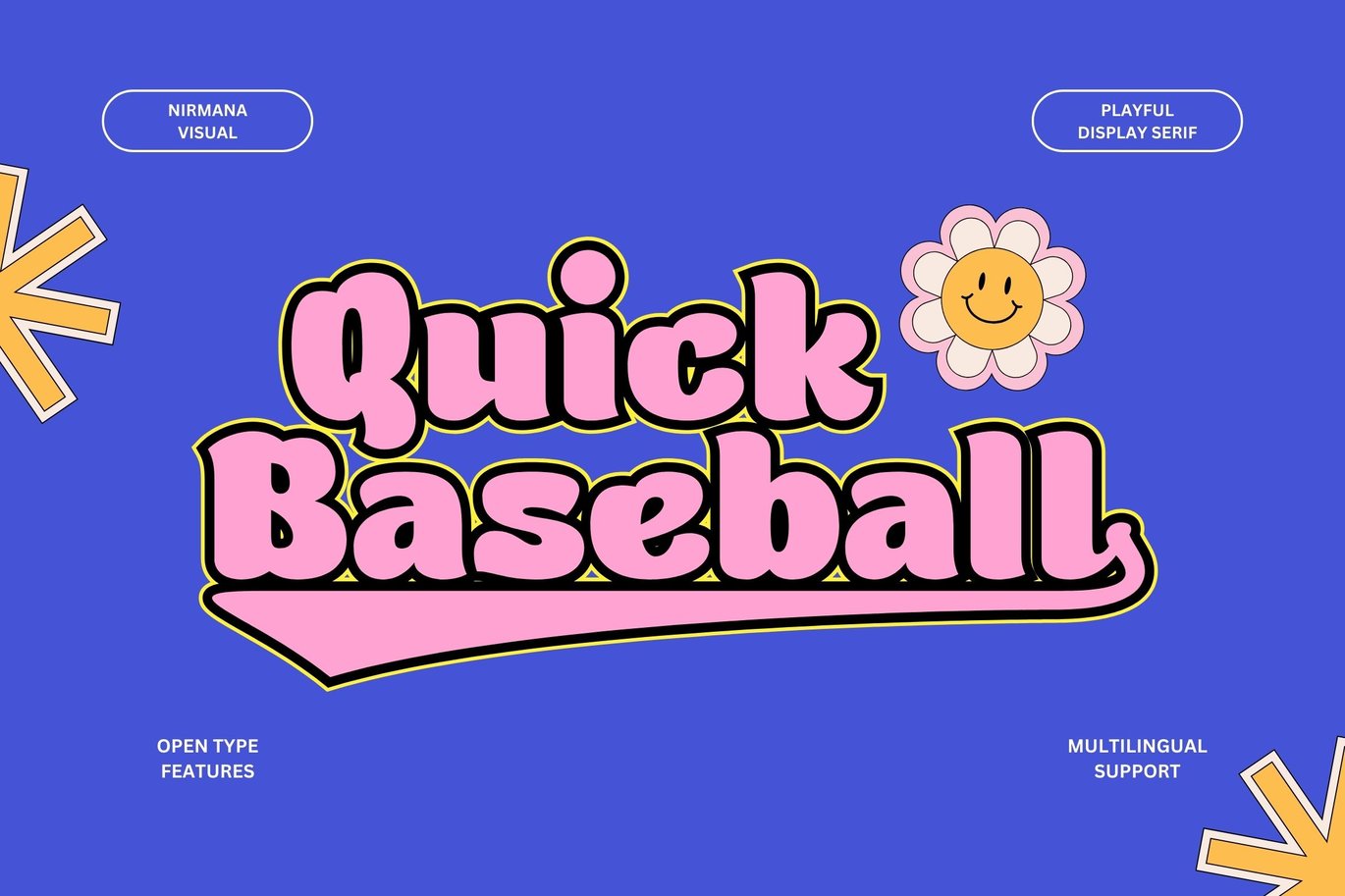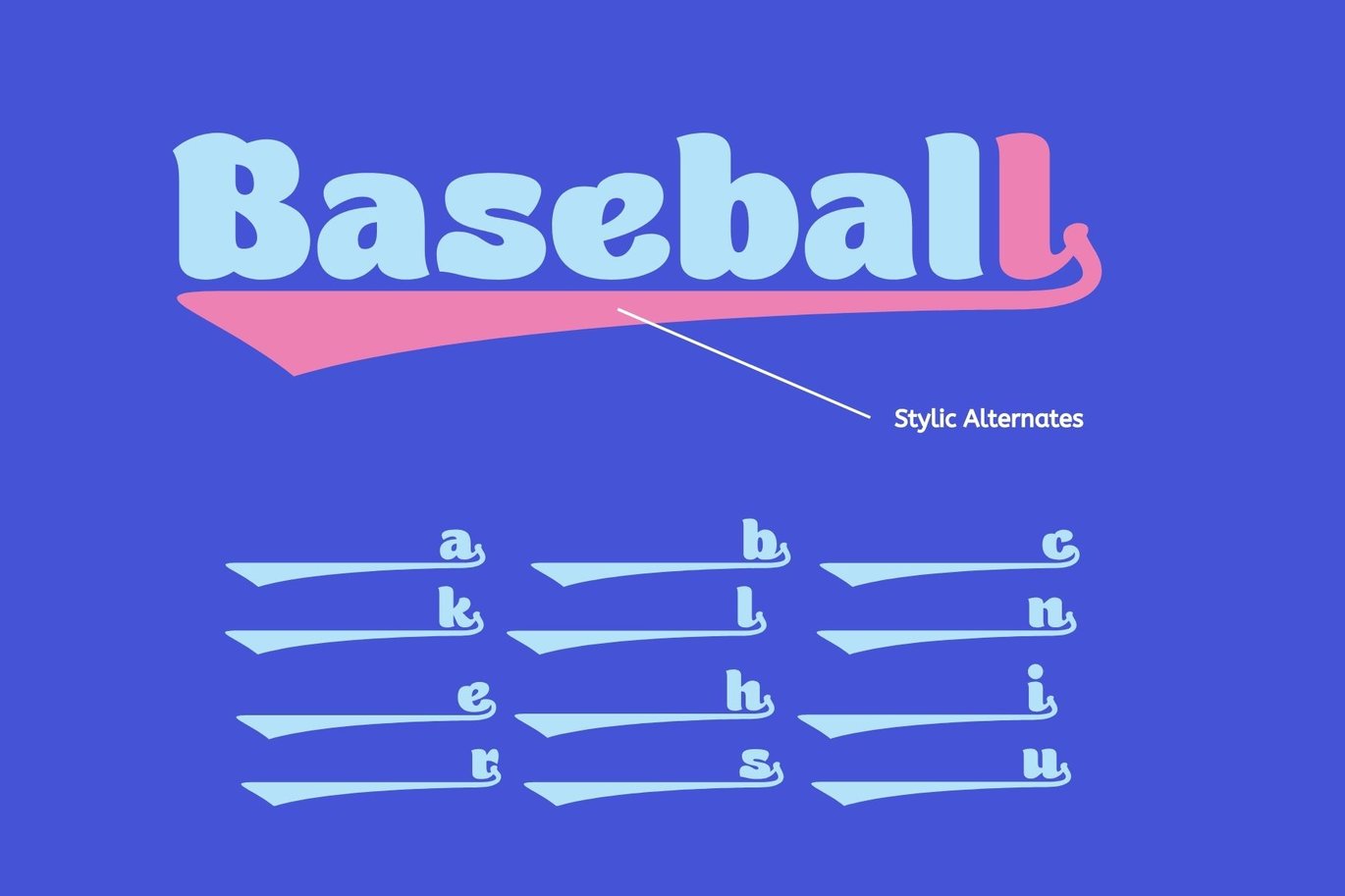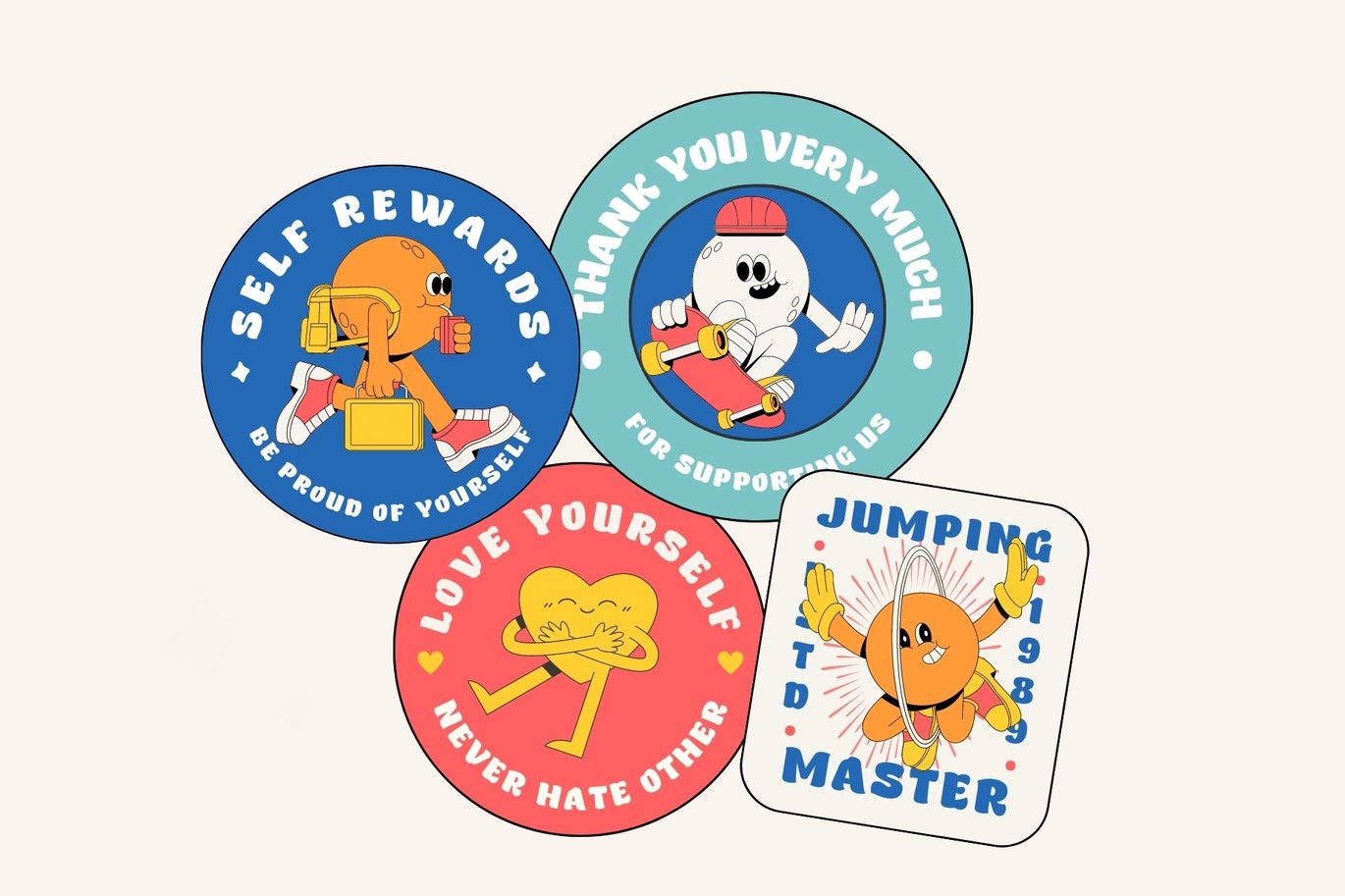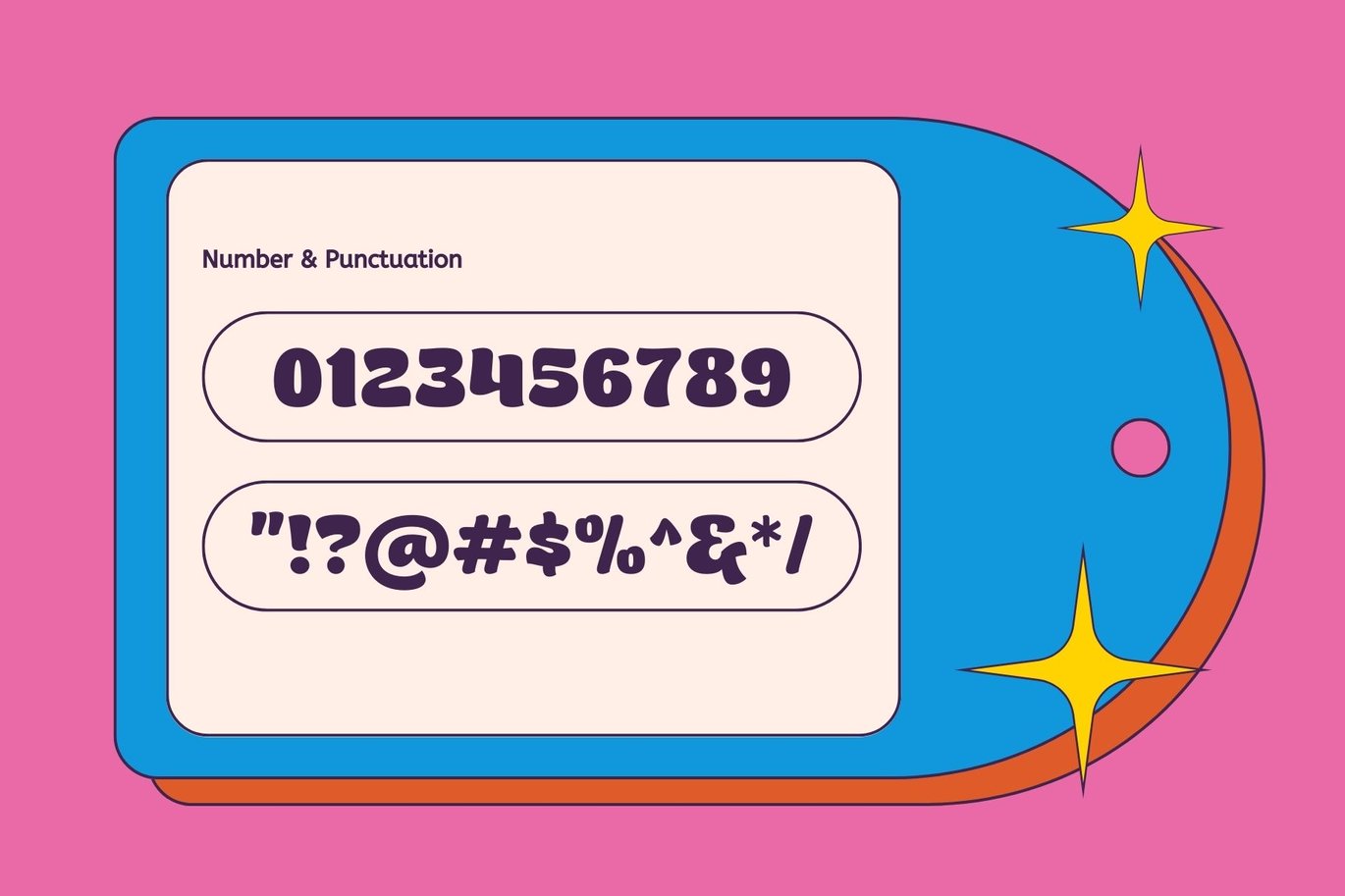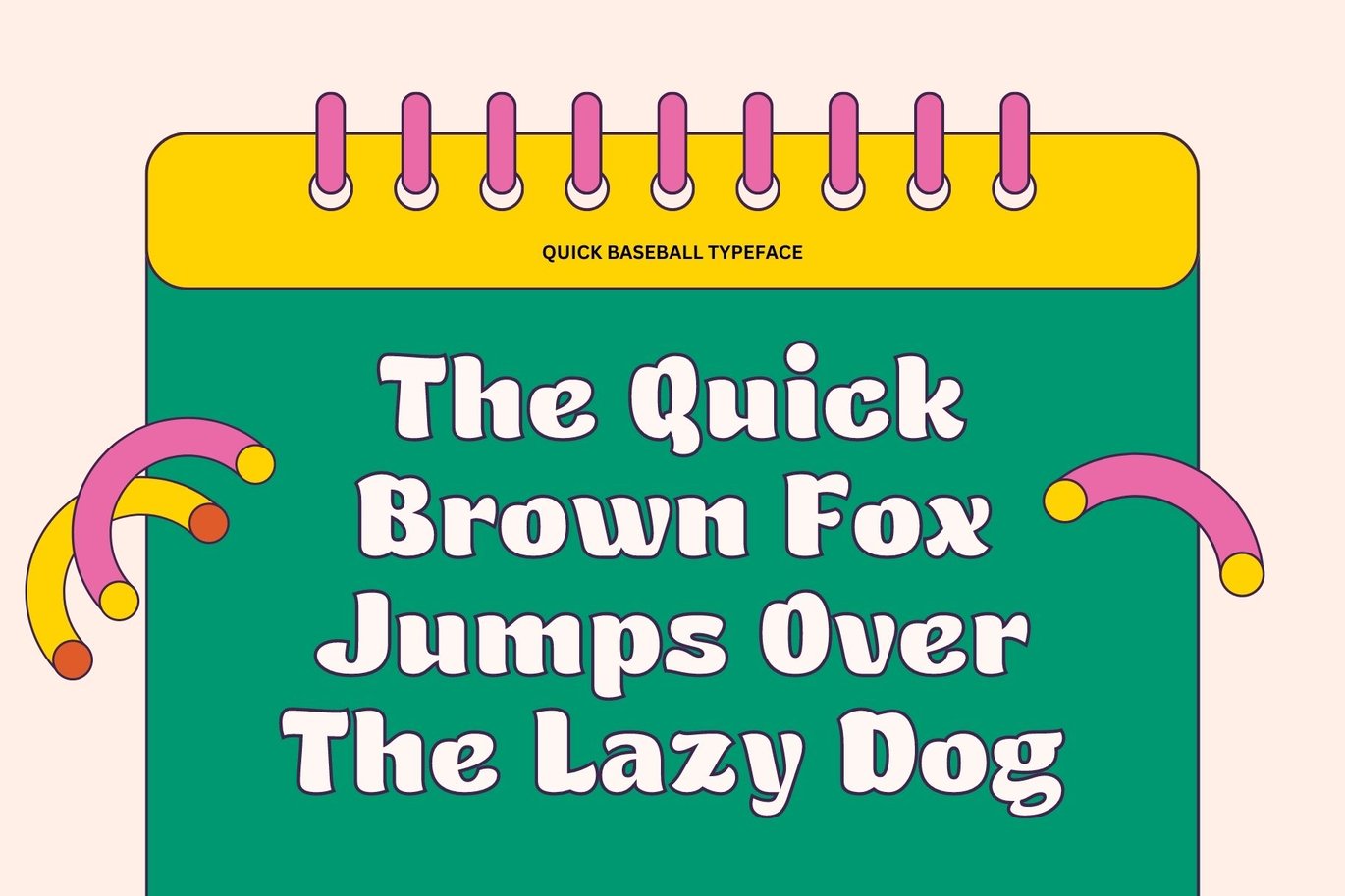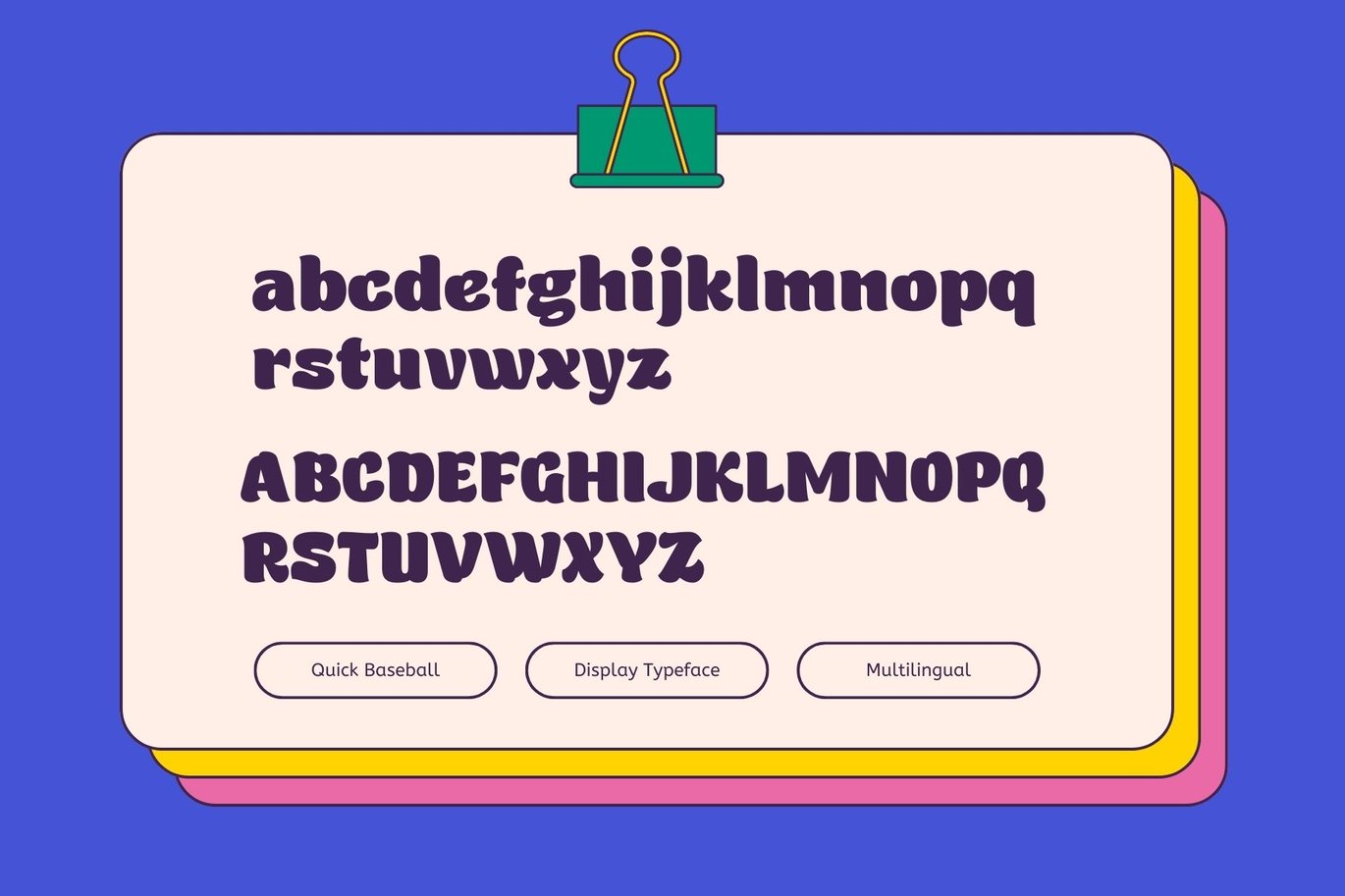
Quick Baseball – Retro Font
Quick Baseball, contemporary of Serif font,
Quick Baseball offers beautiful typographic harmony for a diversity of design projects, including logos & branding, social media posts, advertisements & product designs.